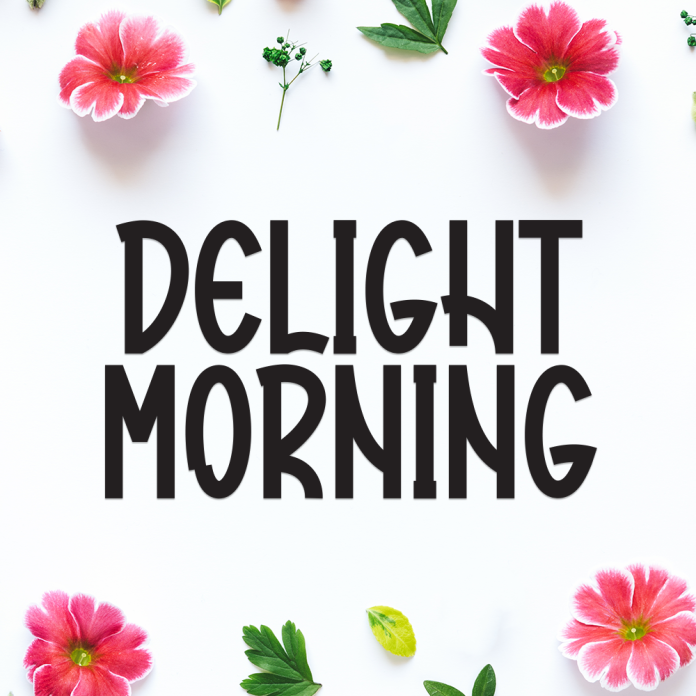
Delight Morning is a charming and cheerful display font that radiates positivity and warmth. With rounded edges and playful curves, it’s the perfect choice for friendly, eye-catching designs.
Whether you're designing for a children’s book, a fun poster, or a lifestyle brand, Delight Morning adds a welcoming and joyful vibe to your text.
Playful and friendly display style
Perfect for headlines, packaging, kids’ content, and branding
Easy to read with a soft and bubbly feel
Start every design with a smile using Delight Morning.